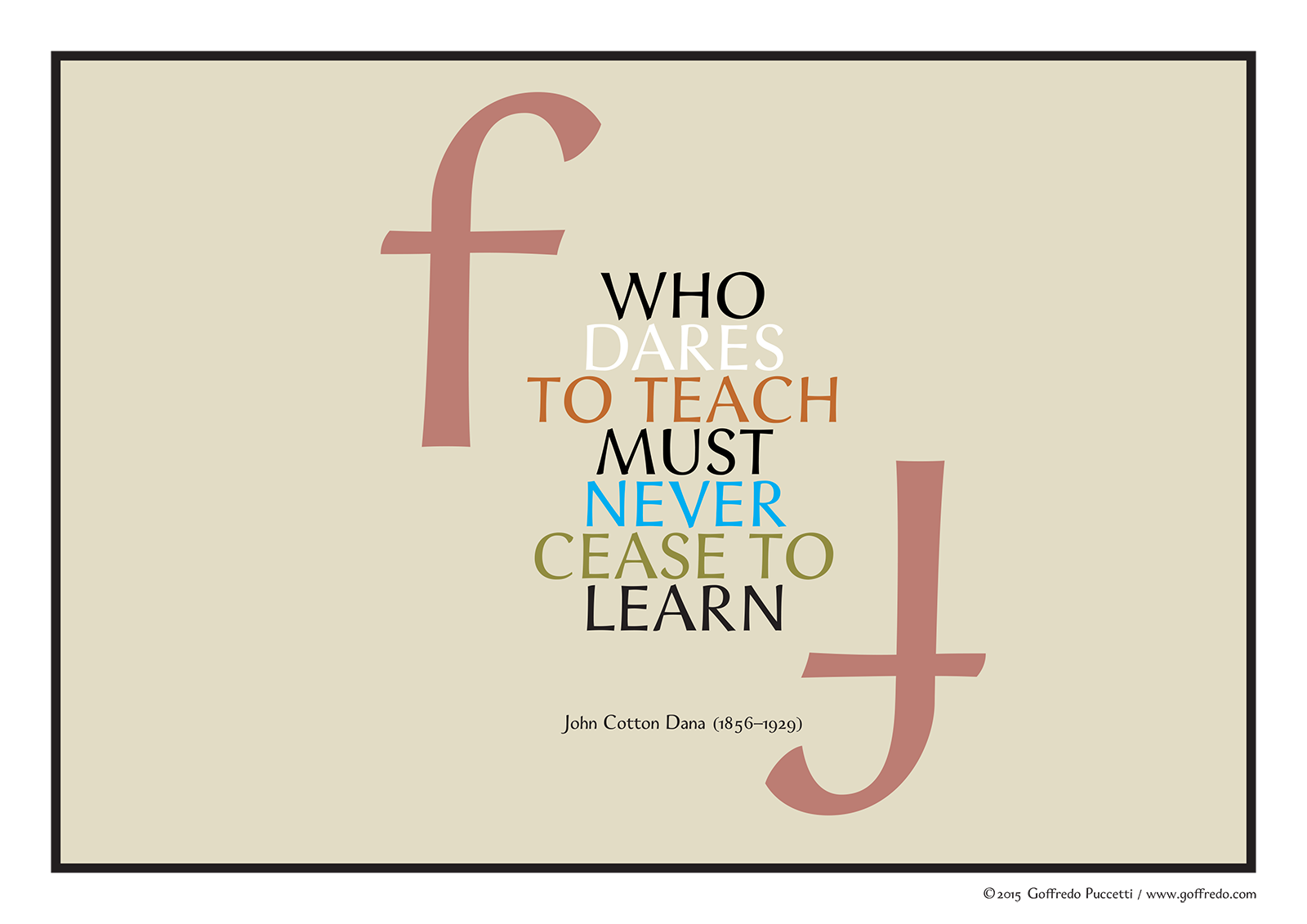
Saadiyat
Saadiyat means Happiness in Arabic and it is the name of a beautiful island adjacent to Abu Dhabi, the capital of the United Arab Emirates.
The island is the home of the Louvre Abu Dhabi and will soon host the Guggenheim Abu Dhabi and the Sheik Zayed National Museum. Since 2014 it is also the home of the New York University Abu Dhabi, where I teach Visual Design and Communication.
For the Type@Paris Typeface Design Masterclass, I have imagined a brief for a humanist sans serif to be used around our campus.
Five weeks are not enough not just for designing a typeface, but not even to complete a proper research about any chosen subject. In my case I was oriented to books and sources on the Roman Capital and the beautiful book by Paul Shaw “The Eternal Letter” stayed open for all five week: it is an incredible feeling when you are given new vantage points from which addressing a topic once thought as already explored in dept, and this course made me realize how little I knew about type design as a craft! Just to think about the number of type designers who spent years measuring the letters on the basement of the Trajan Column, is reason enough to stop any pretention of designing any valuable type and go back to the library to hit the books (and by the way: it is quite a shame that the beautiful Pascal by José Mendoza y Almeida is not given the same attention and recognition of, say, the Optima by Hermann Zapf).
But that has not been the spirit of Type@Paris and I am so grateful for that. The masterclass has been all about learning by doing; yes, we did had no less than five amazing research visits: the Rare Books room at the National Library, the Bibliothèque Mazarine and André Jammes rare books collection in Paris, and the Museum of printing and Musée Gallo-Roman in Lyon; but the core of the class has been on the craft: from free hand calligraphy and tracing to learning a type design software from scratch (BTW: Glyphs, excellent!) we did not had a moment of rest.
I struggled a lot in finding my own pace in type design and learn valuable lessons in time management: is an afternoon enough for 9 numerals? The answer is no. Not now at least! :-)
The lessons on forms, counter forms and spacing by Jean-Francois Porchez and the amazing team of designer he assembled for the masterclass, hit me on so many fronts I think I still have to recover, as I write this note on the very last day of the course. Basically every day ended with me going through my notes and ordering books over the net while staying awake at night designing letters until my eyes hurt.
Of course, I did not expect to be be able to design a finite, plausible type from scratch in 5 weeks; there is still so much to learn: interpolation, just to say one word! Spacing, if you need a second one; fundamental concepts in type design that require time and devotion to be perfected. I am happy and proud of what I have accomplished in five weeks. My Saadiyat, as it is now, it is nothing but an embryo. A typeface in nuce, with some interesting characteristics that I’d love to elaborate more in the future. For the moment it will look fine on my cards and that’ll be all. ;-)
The great type designer Jose Mendoza Y Almeida said that it takes 15 years of practice before you can call yourself a type designer; I did experiment for 5 weeks. Cool. That means 775 weeks to go; stay tuned for some news from me in July 2030.